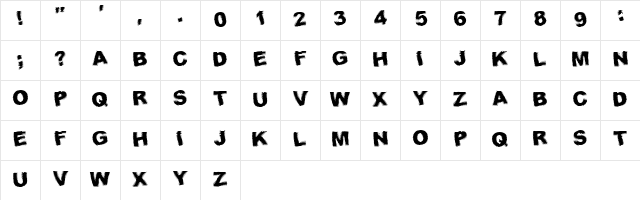
Fresnel is a composed and adaptable typeface that performs quietly and consistently across a wide range of design contexts.
Pro Tip: Use Fresnel in both headline and body roles to test its range before committing to a single application.